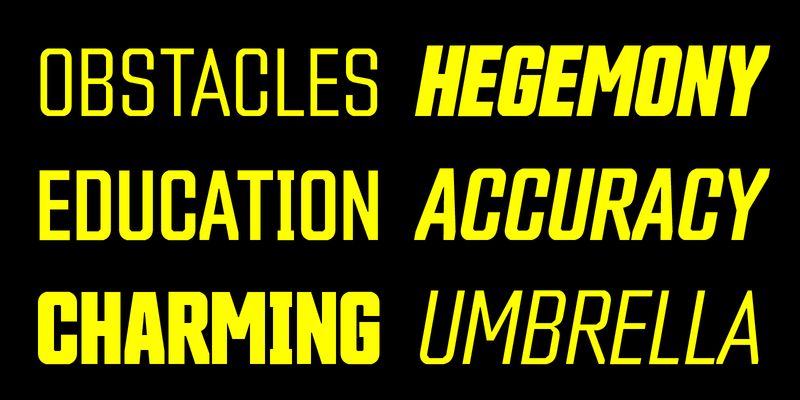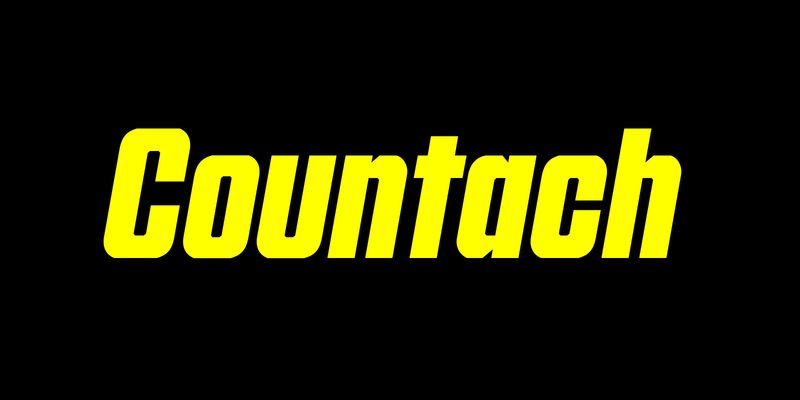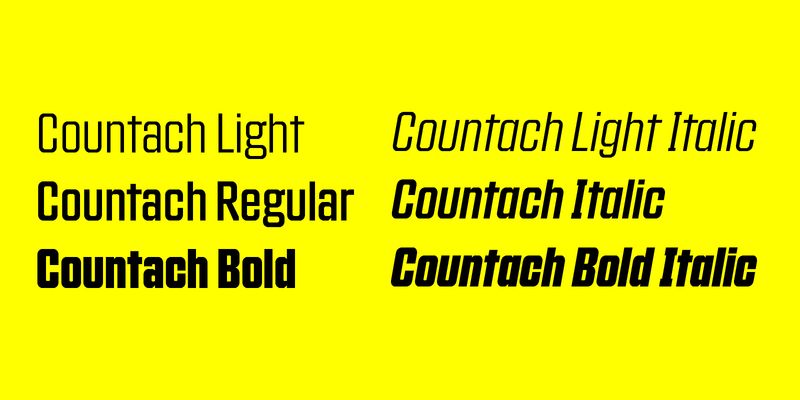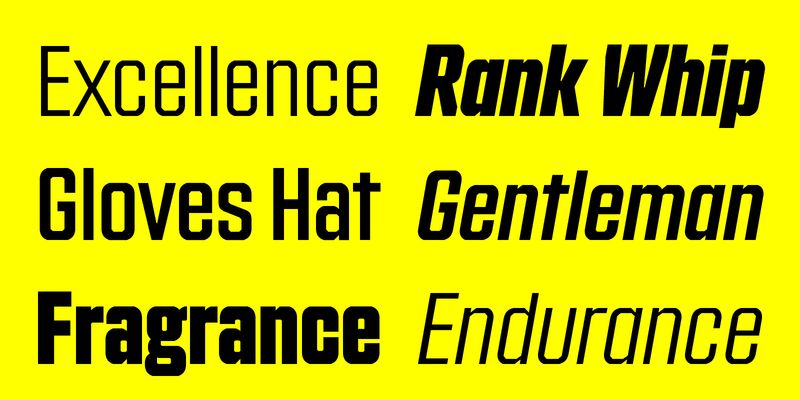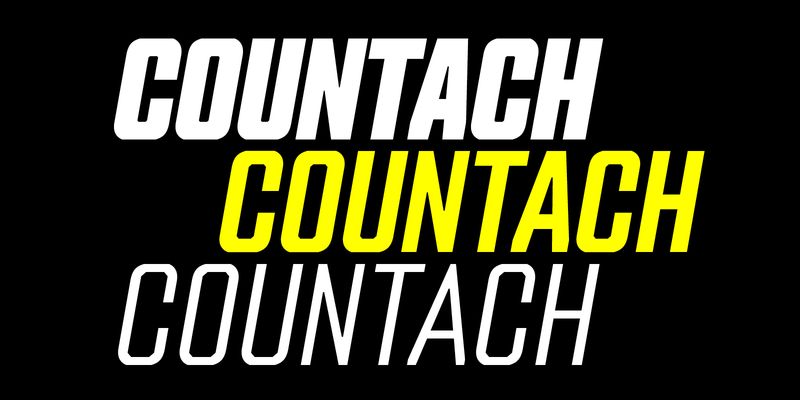
Countach is as much beauty as it is brawn, however. The six-style family has a refinement that extends its use far beyond its original purpose, and well-considered details prove that Countach is more evolved than type built on a rigid and modular grid.